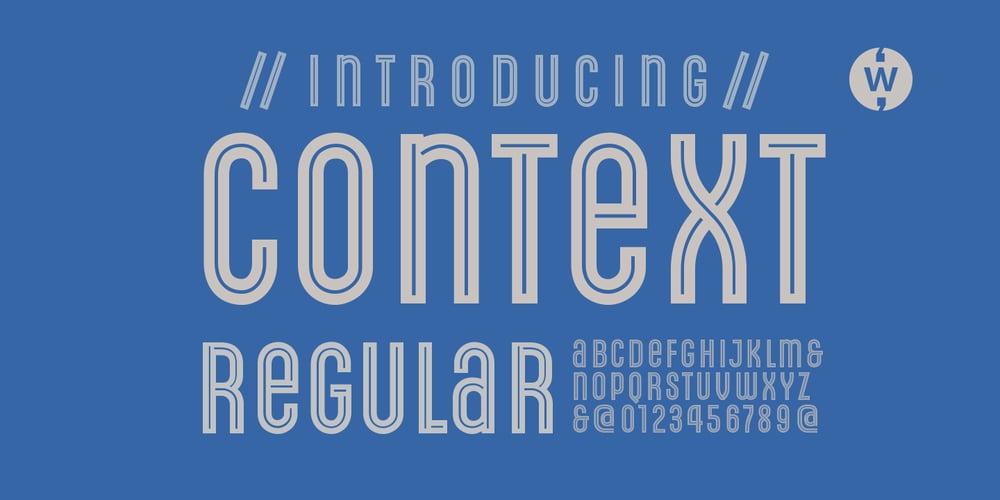
Context Regular Font Family was designed by Robbie de Villiers and published by Wilton Foundry. Context Regular contains 1 styles and family package options. Context Regular is a condensed inline font with a stencil inline glyph – this makes for a smoother visual join of the stems. Context is also mono-case with the most interesting case selected for a pleasing end result. Applications are numerous: Display, Branding, Advertising, Logos, Publications, etc.